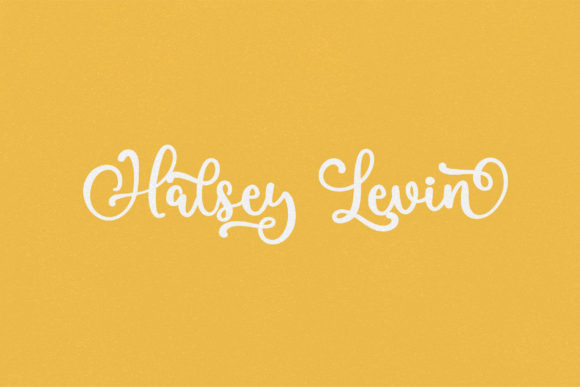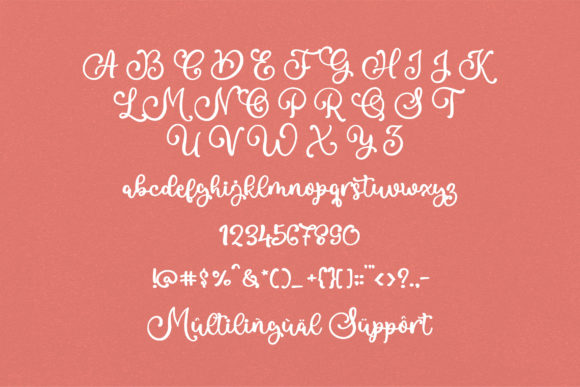
Apple and Sugar Font
db-ku.com - Script & Handwritten -- Apple and Sugar is a cute handwritten font. Get creative with its childlike playfulness, and use it to brighten up any kids and school project!